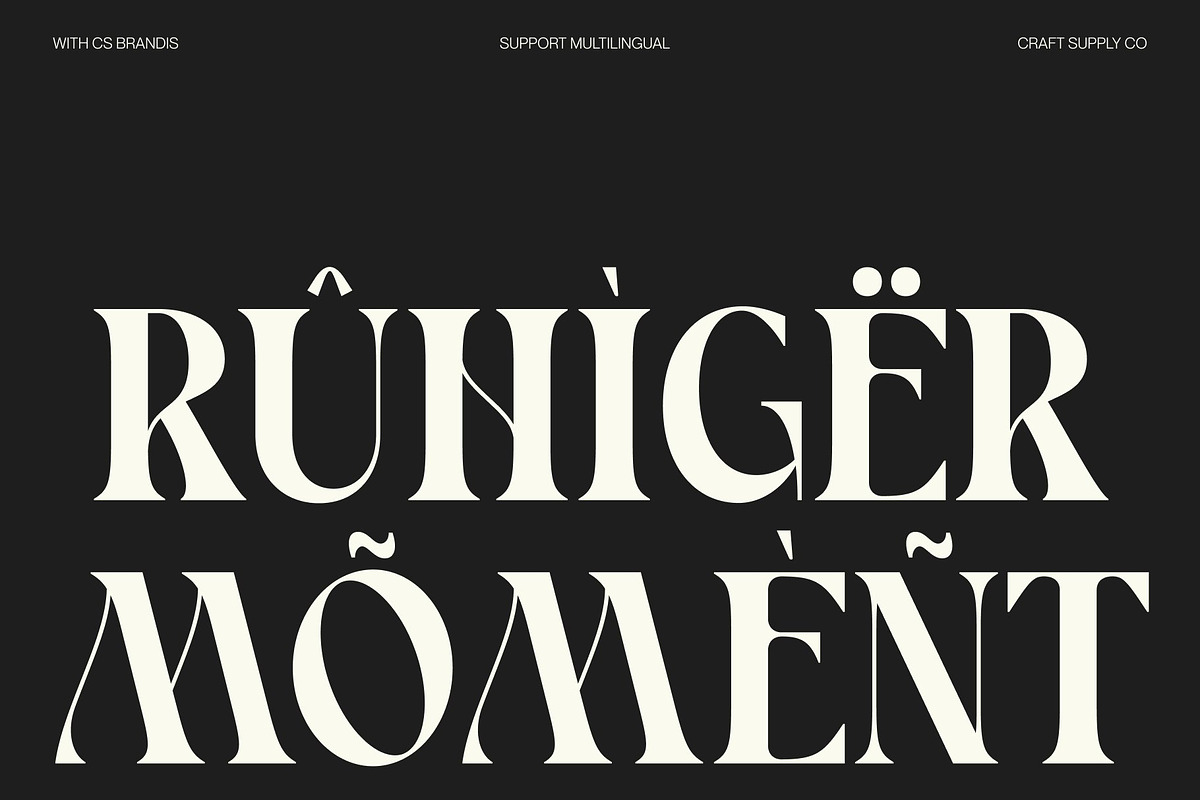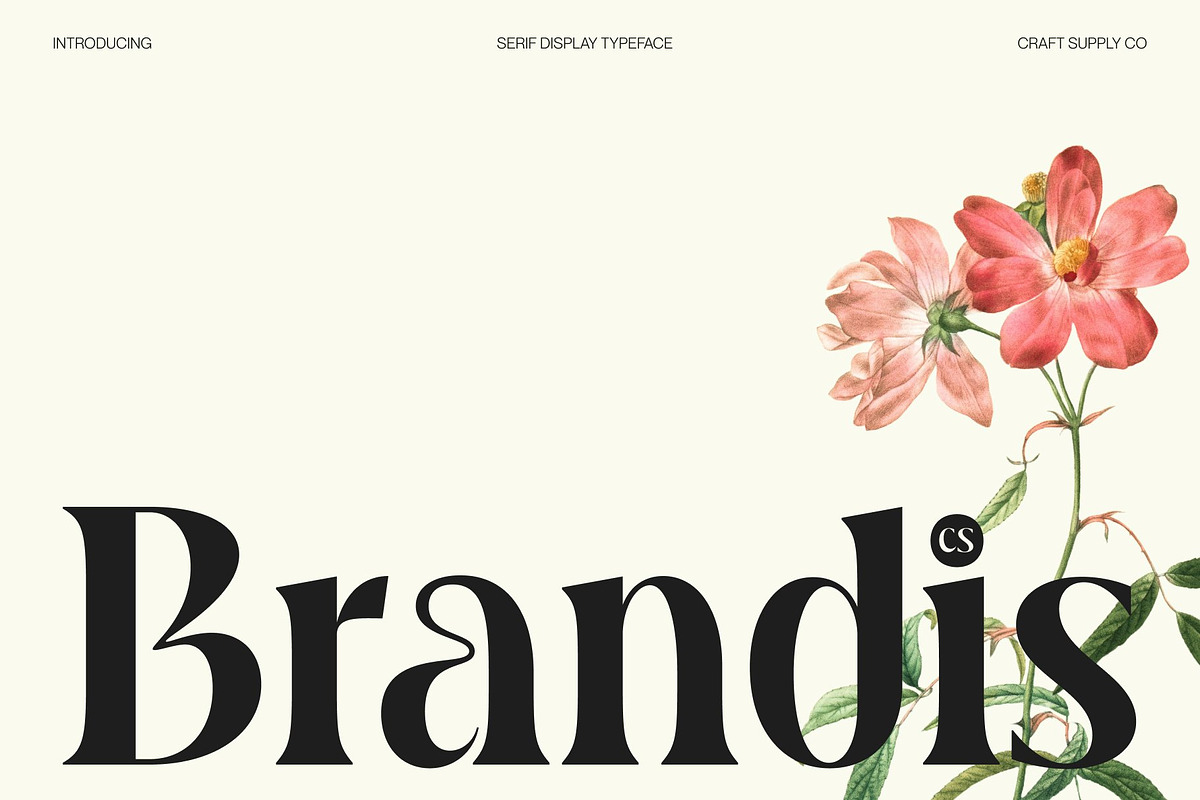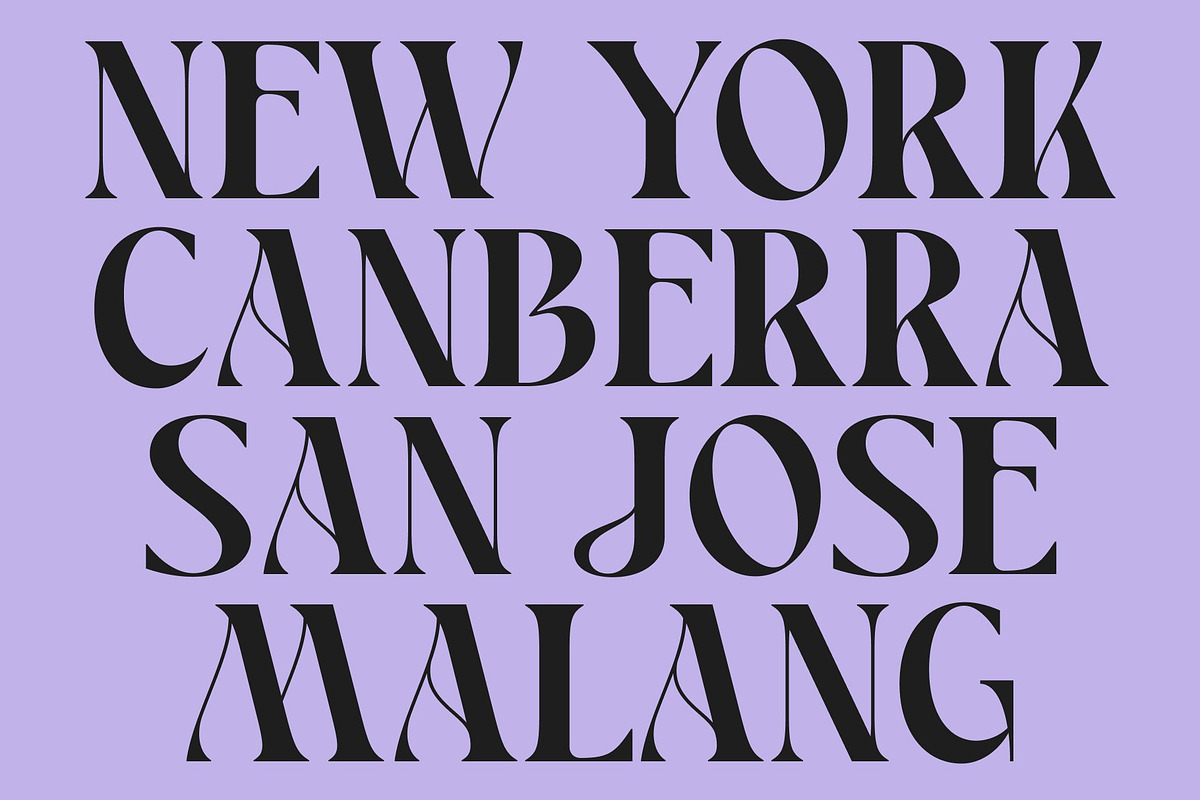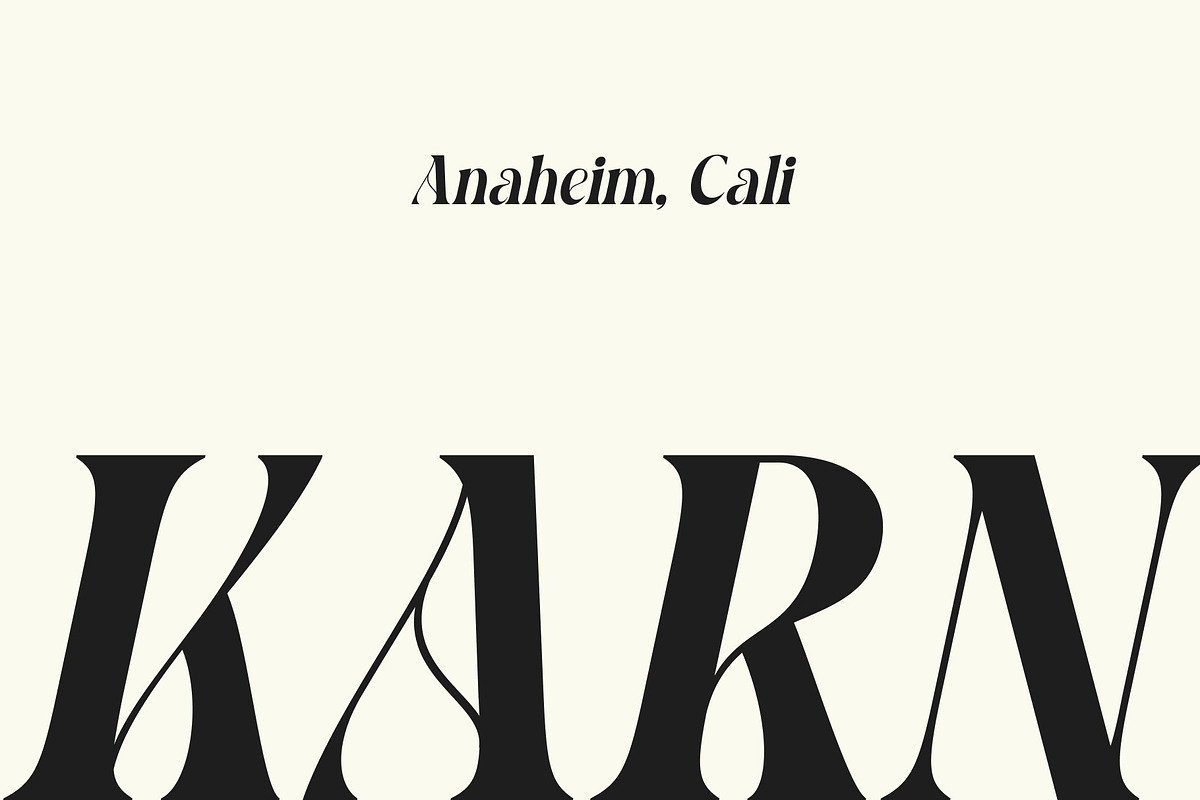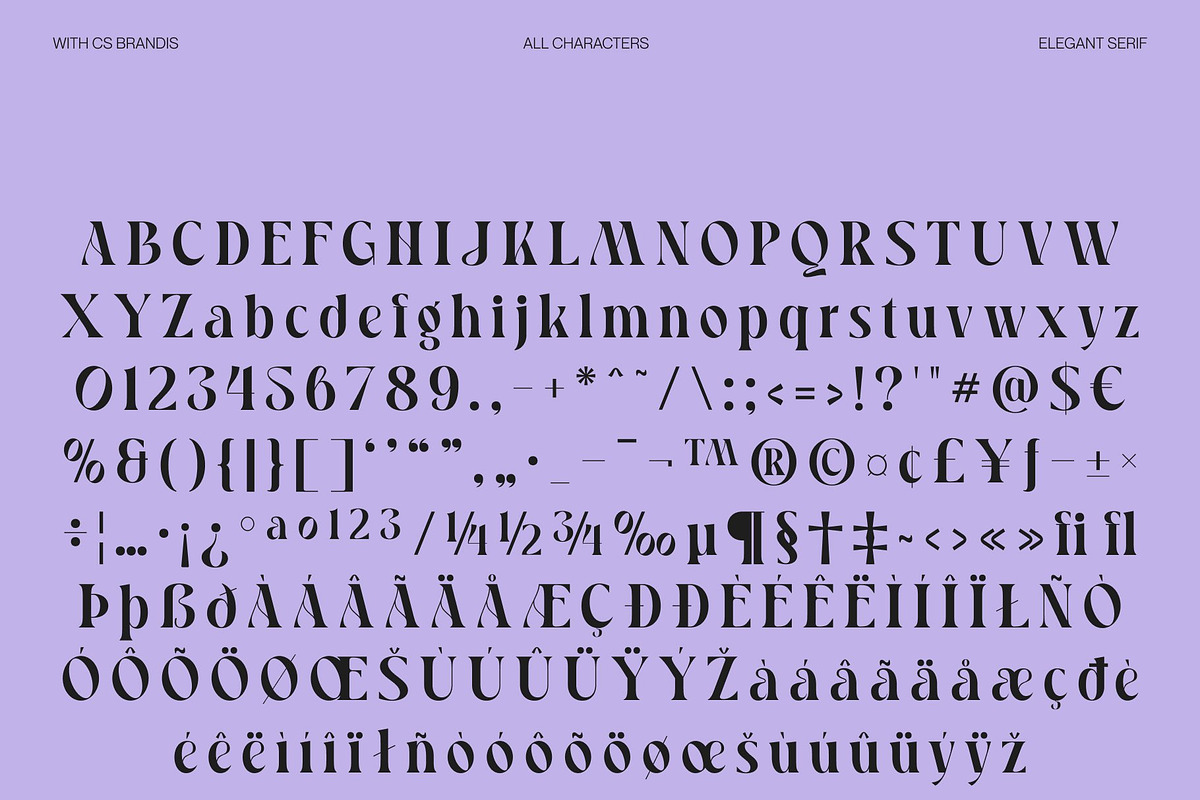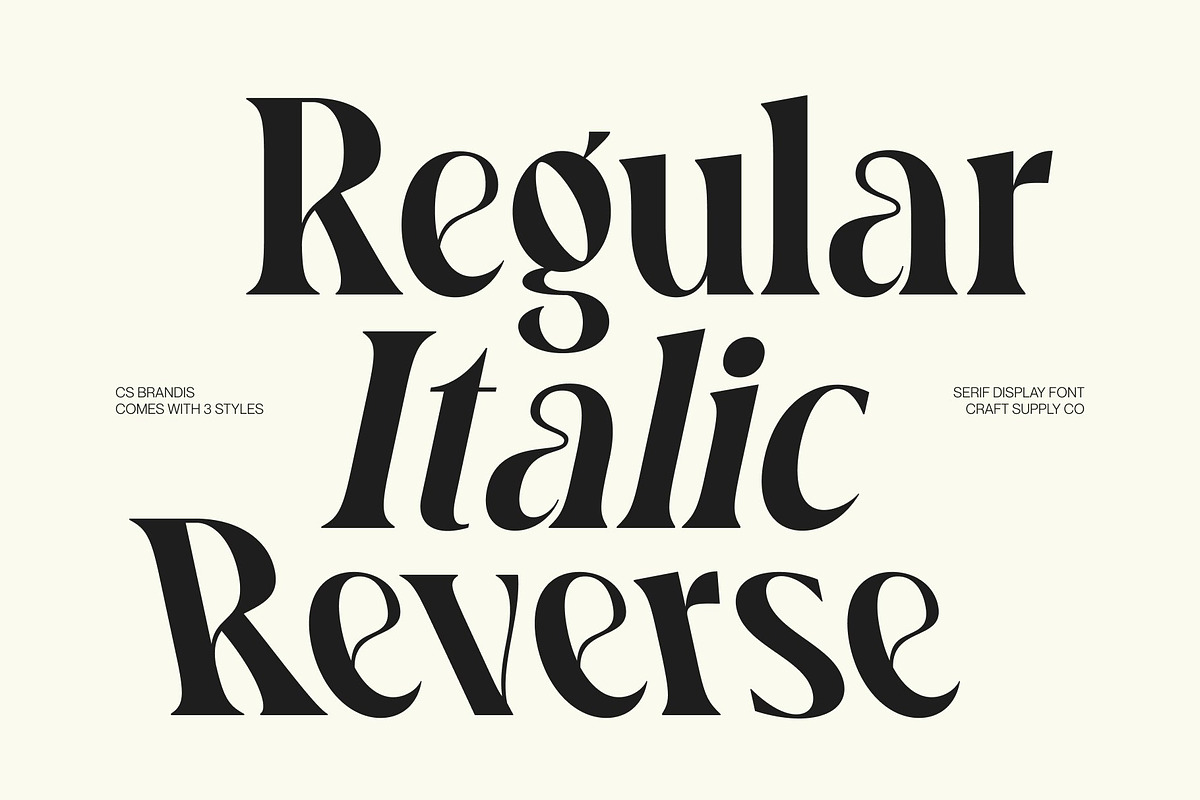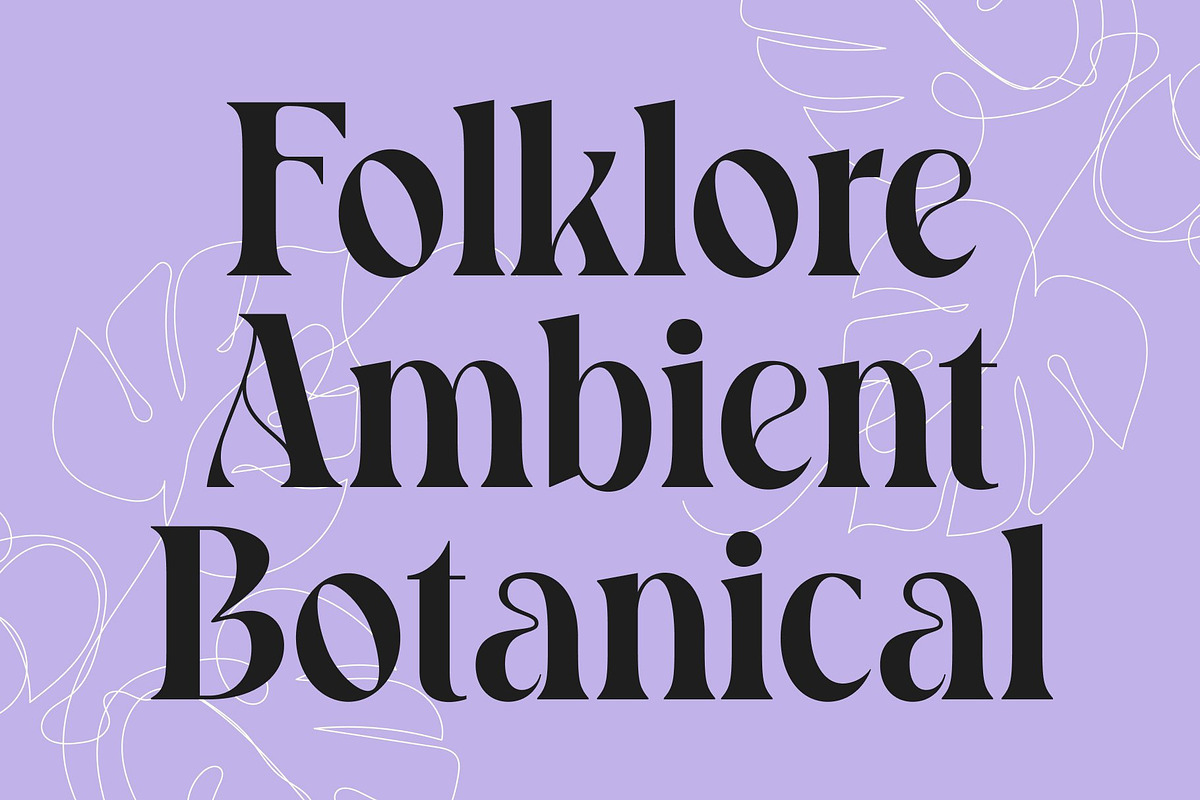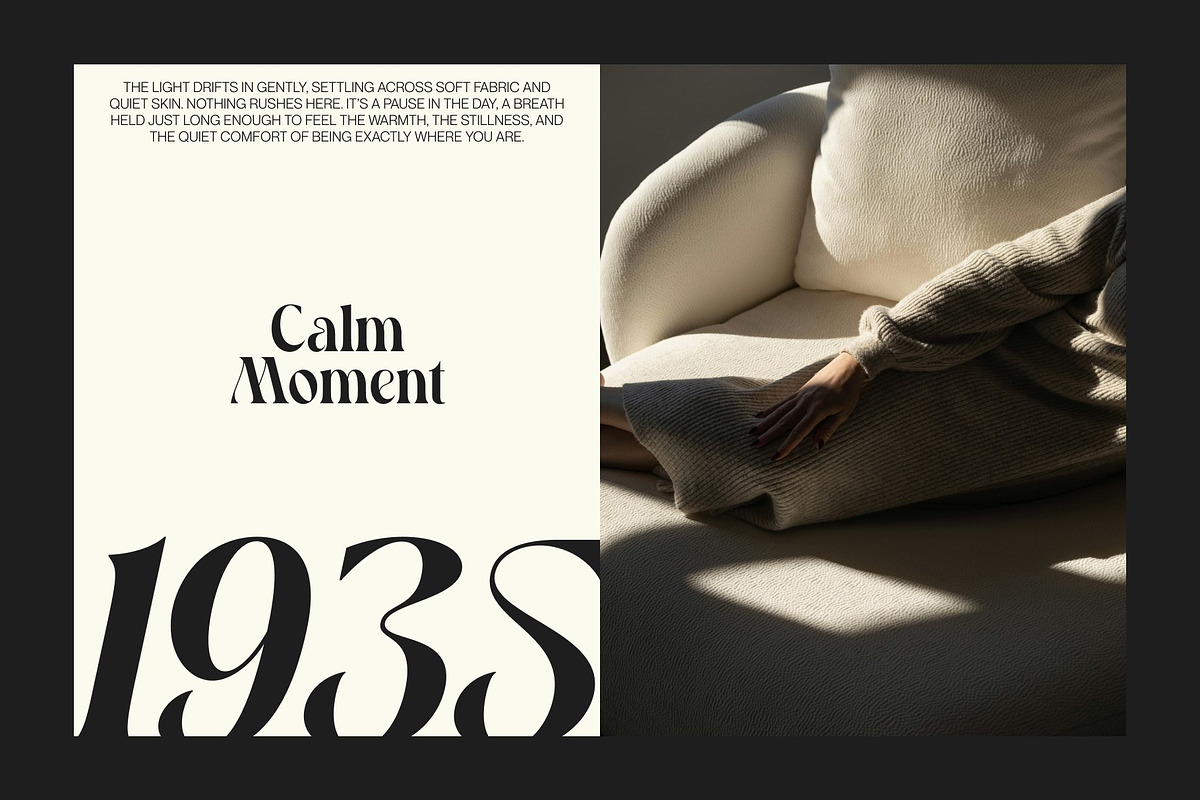
CS Brandis – Modern Serif Font
CS Brandis – Modern Serif with Elegant High-Contrast Character
Modern Serif with Timeless Elegance This is a modern serif font designed to express elegance through timeless proportions and contemporary refinement. Its well-crafted letterforms balance classic serif foundations with a modern attitude, creating a sophisticated typeface that feels relevant and stylish. The overall design radiates beauty and confidence, making it suitable for high-end visual communication.
High Contrast with Playful Modern Shapes The defining feature of this font lies in its high-contrast strokes, which bring drama and visual rhythm to every letter. This contrast is enhanced by playful, modern shapes that add personality and charm without compromising refinement. The result is a font that feels expressive and aesthetic while maintaining a polished, professional presence.
Contemporary Style with Sophisticated Appeal This font blends contemporary design sensibilities with elegant detailing, producing a look that is both modern and timeless. Its refined curves and sharp transitions create a dynamic yet graceful flow, allowing text to feel lively, fashionable, and sophisticated at the same time.
Perfect for Fashion and Editorial Design Ideal for fashion branding, posters, and editorial layouts, this font excels in headlines, titles, and statement typography. It enhances fashion campaigns, magazine spreads, and luxury branding with a modern, high-contrast elegance that feels playful, aesthetic, and confidently sophisticated.